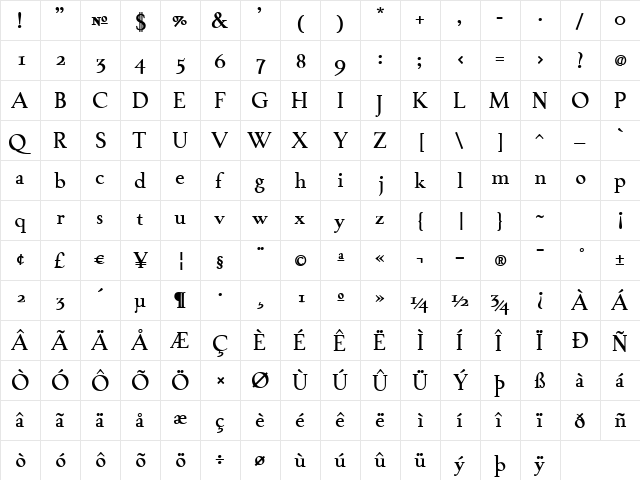
TaskBold Regular
Design Context for TaskBold Typeface
TaskBold is a composed and adaptable typeface that performs quietly and consistently across a wide range of design contexts. Its bold stroke weight gives it real presence on the page.